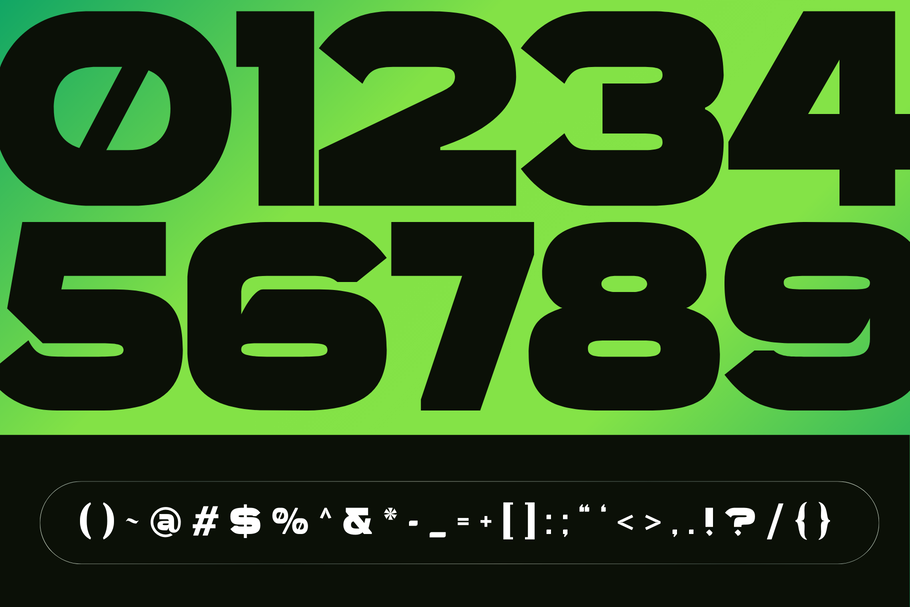
Qepho Modern – Minimal Sans Serif Logo Font
Qepho Modern offers beautiful typographic harmony for a diversity of design projects, including logos & branding, social media posts, advertisements & product designs.
• Branding Logo Font
• Modern Design
• Perfect for Branding & Logos
• Multilingual Support
• Minimal Modern Font